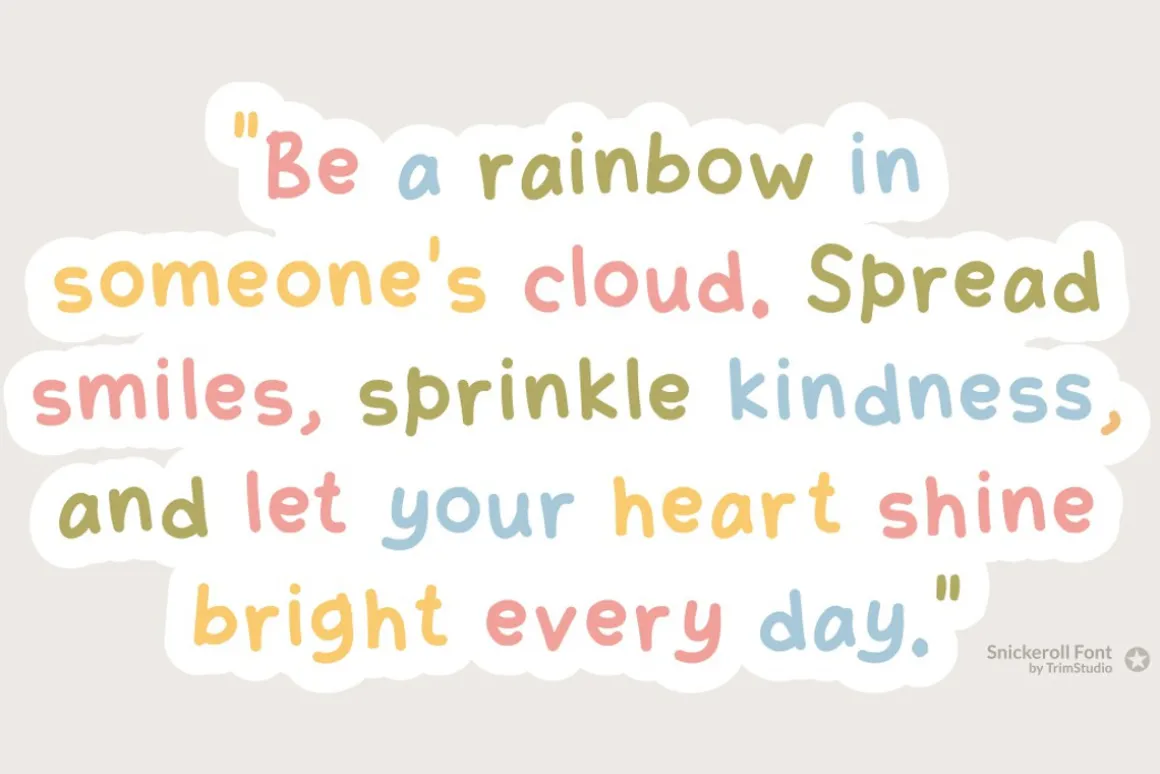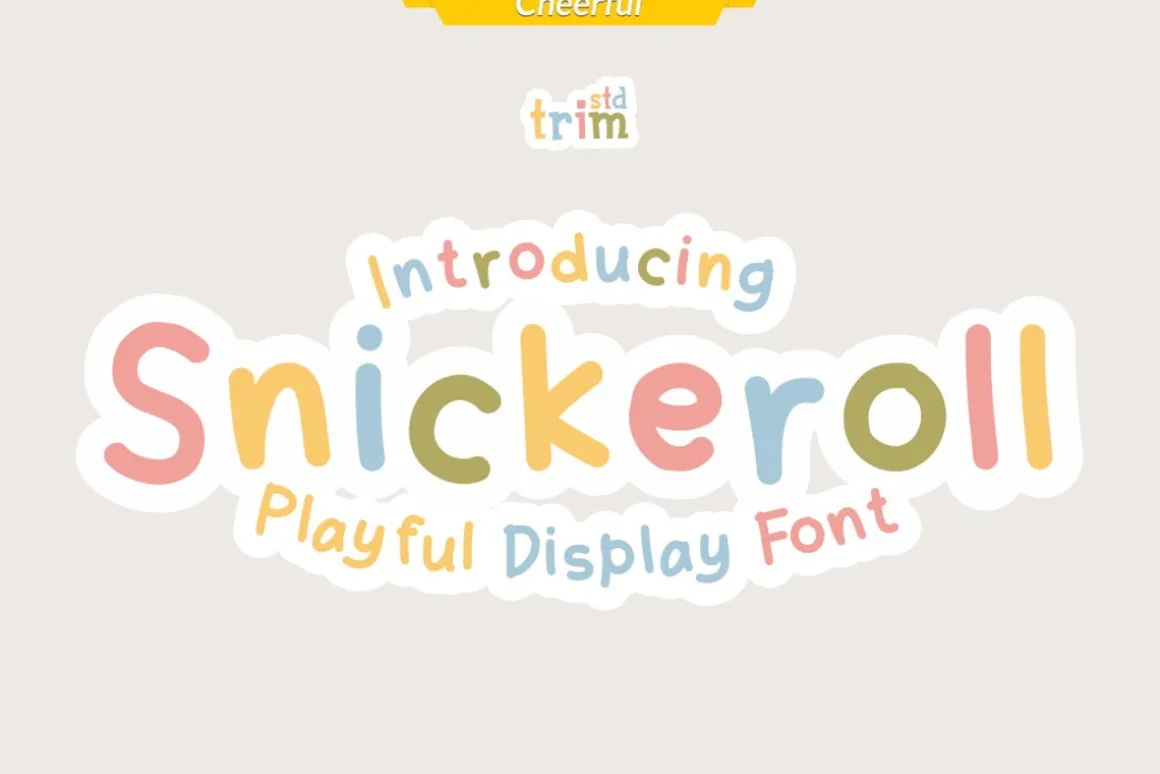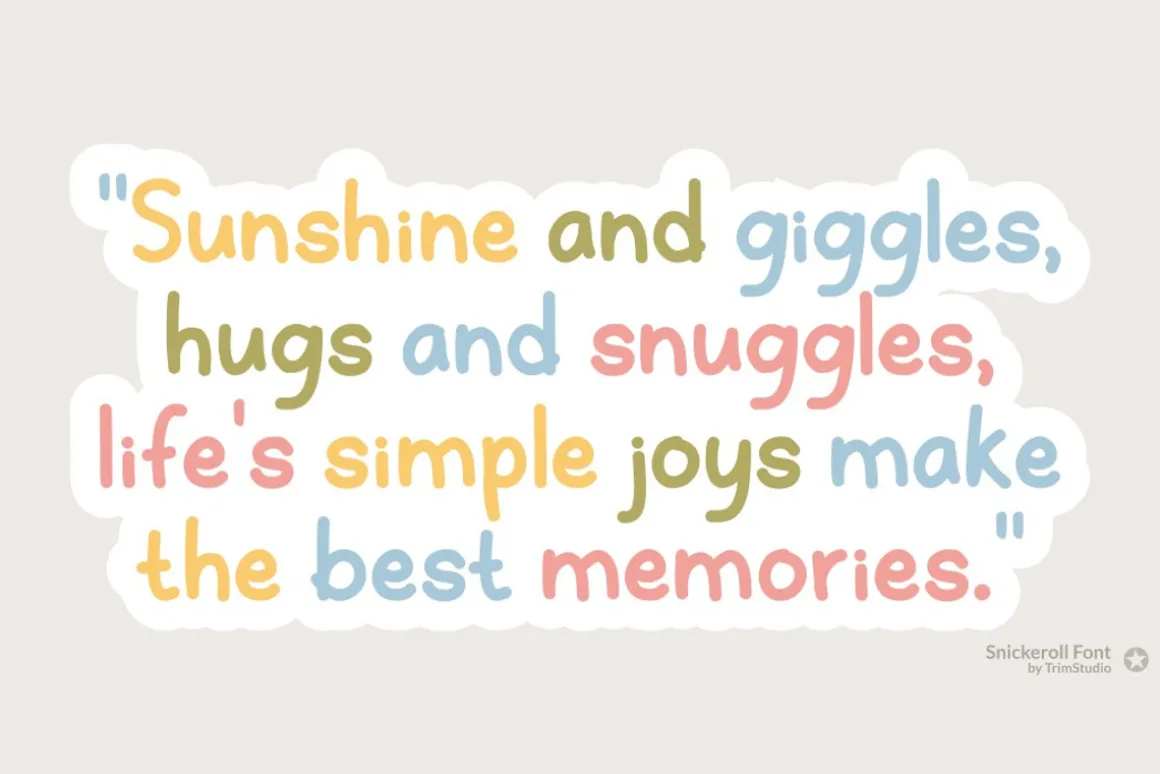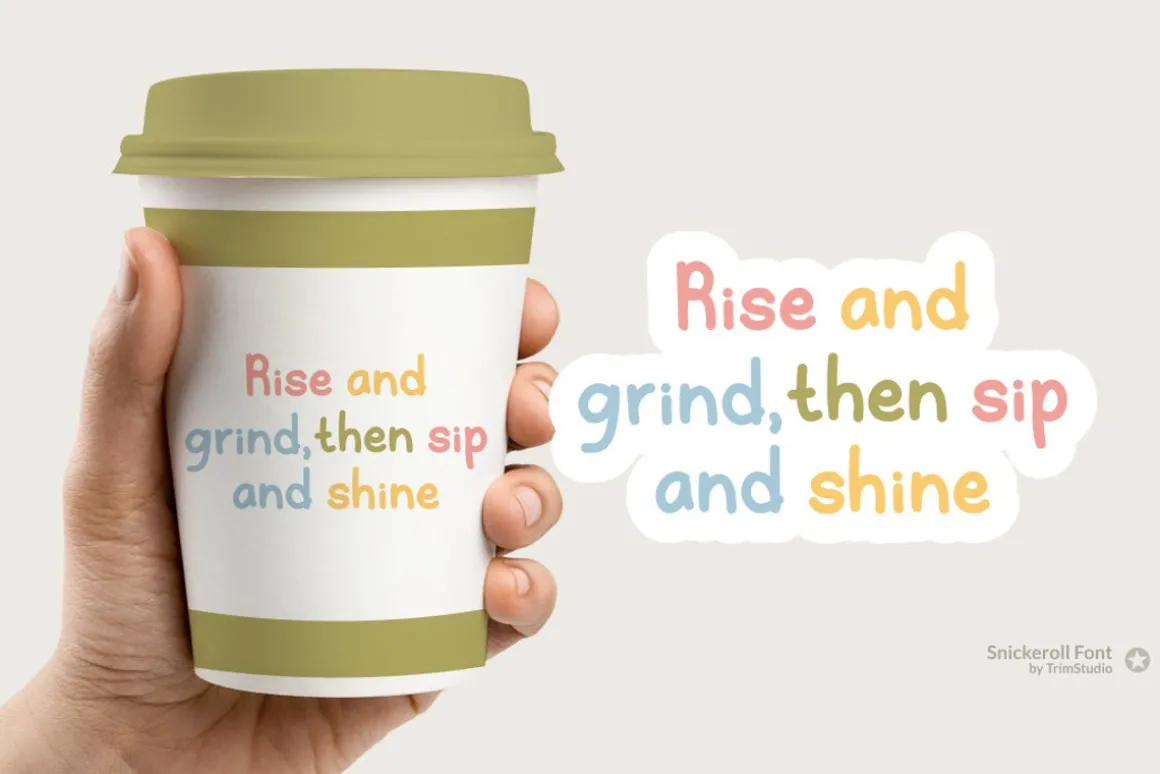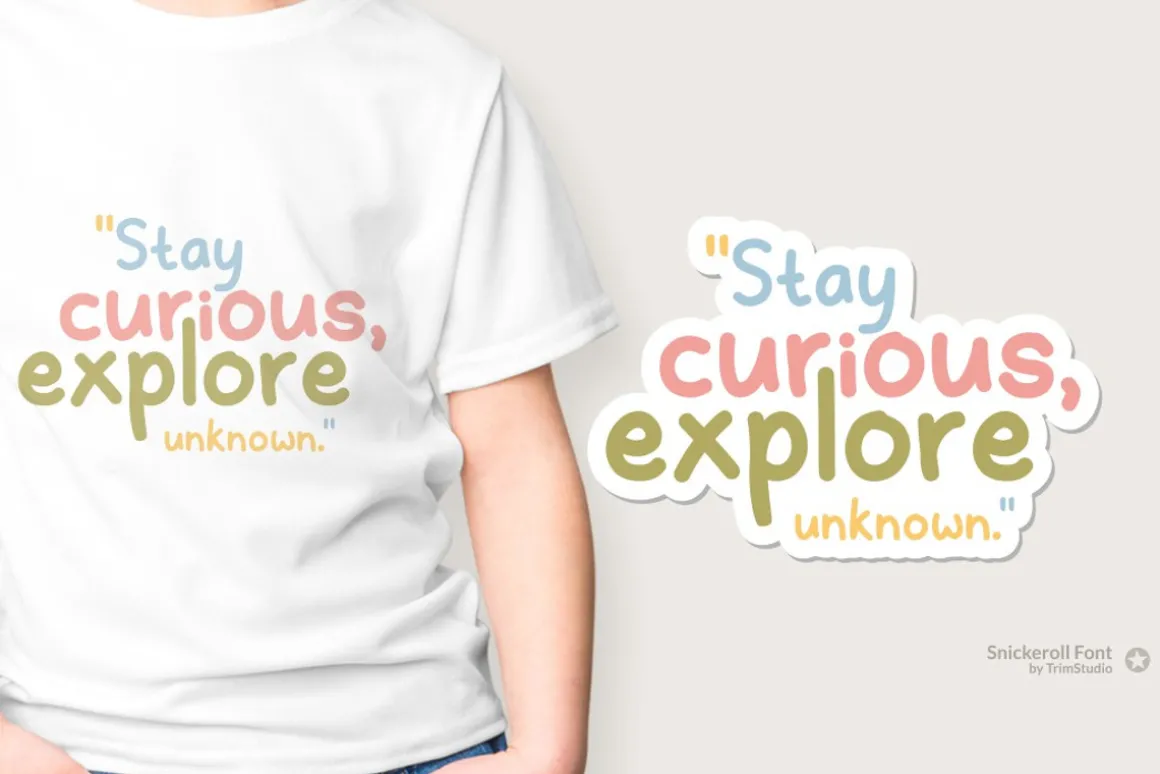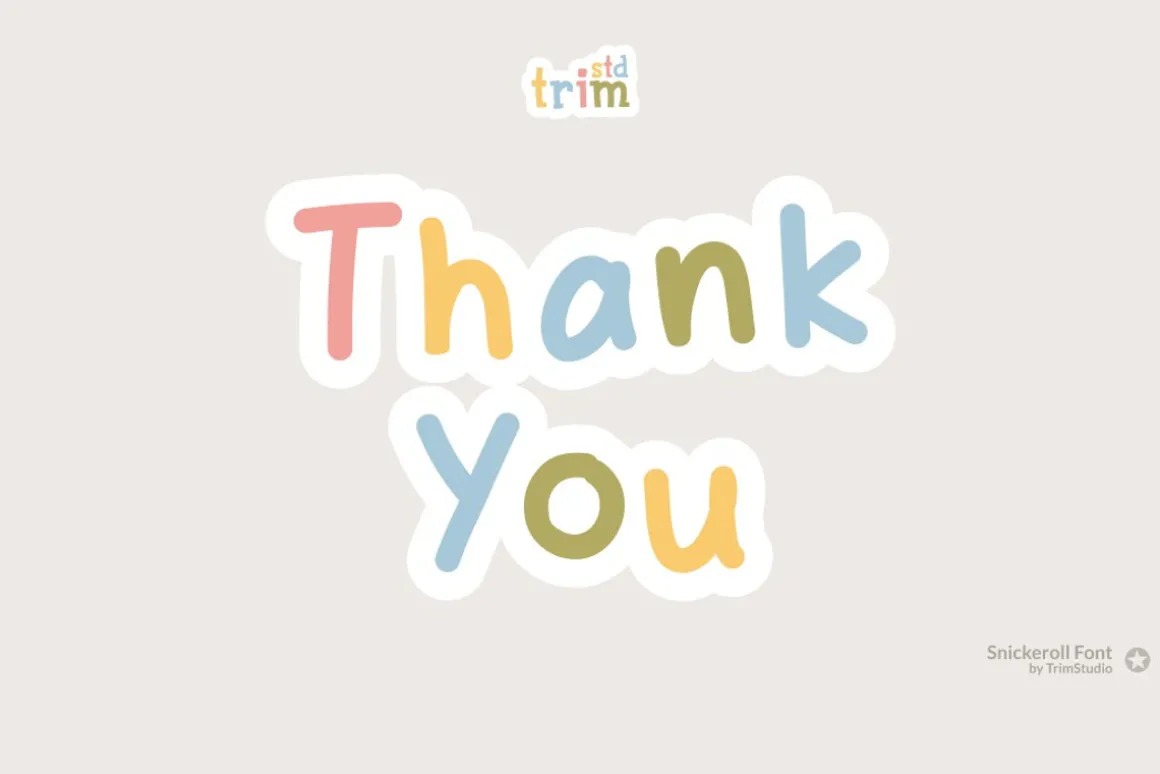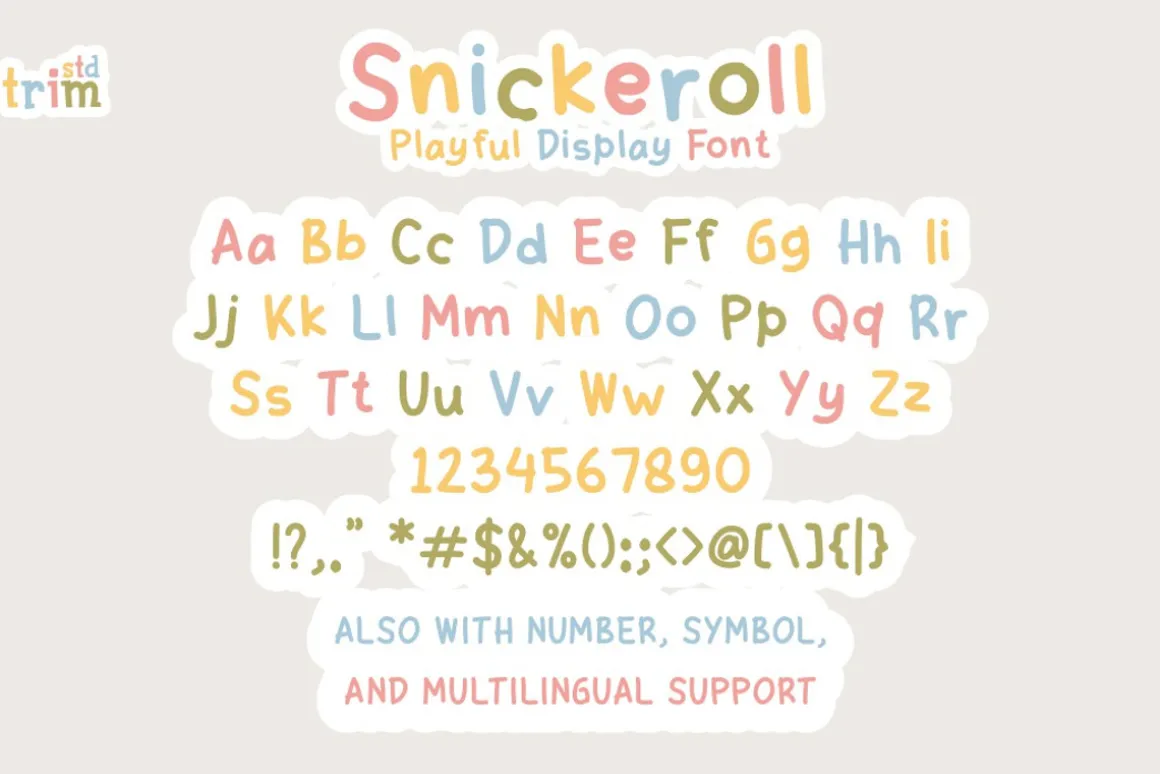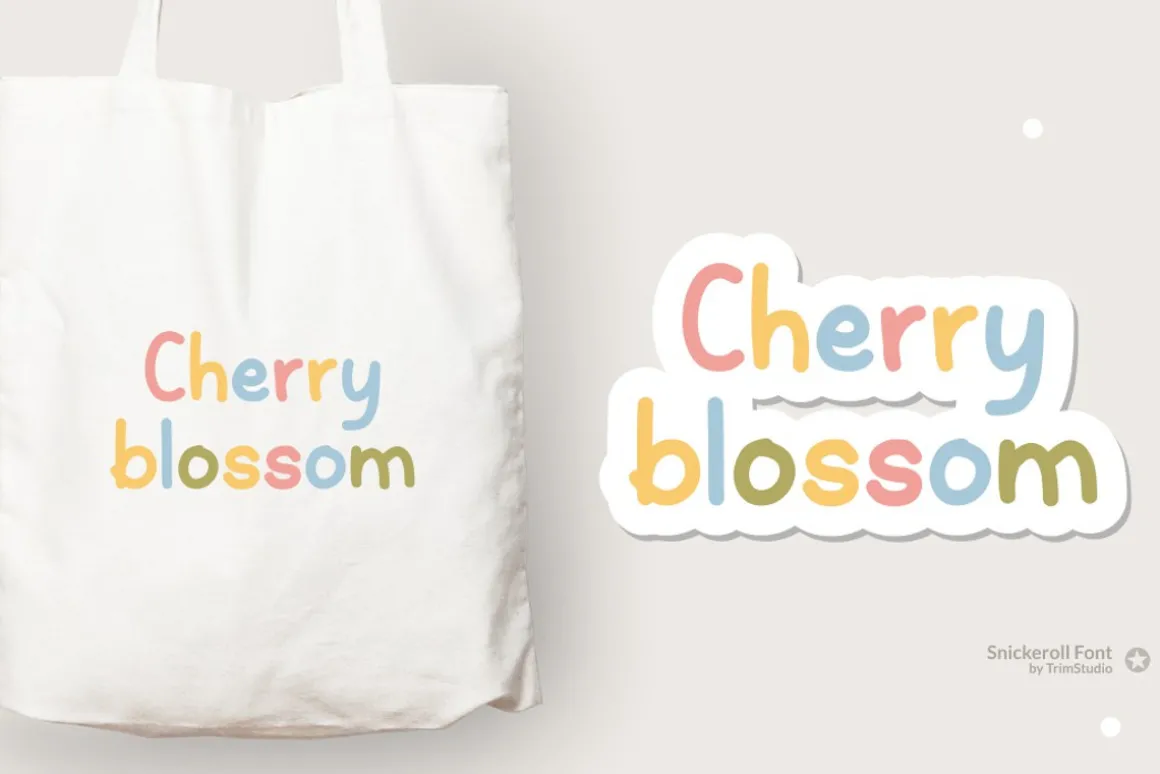
“Snickeroll” is a delightful display font with glyphs that playfully ascend and descend from the baseline. Its charming and fun style adds a touch of whimsy to any design project. Perfect for conveying a cheerful and playful vibe.